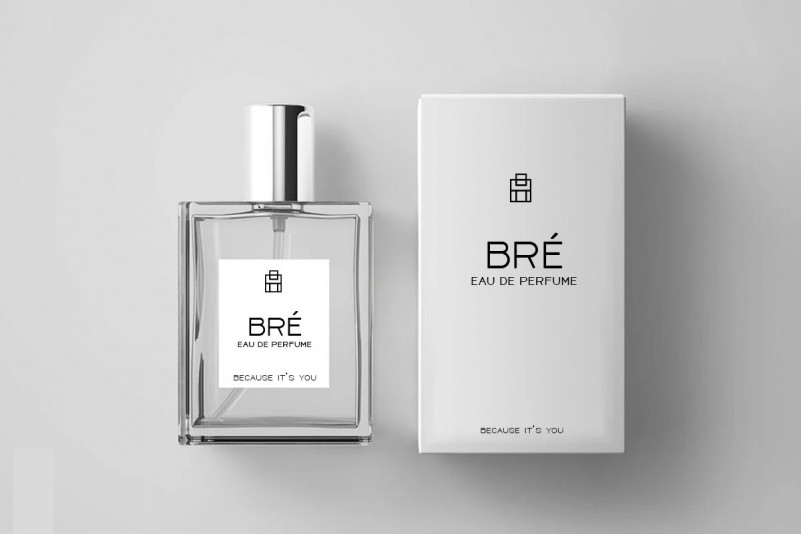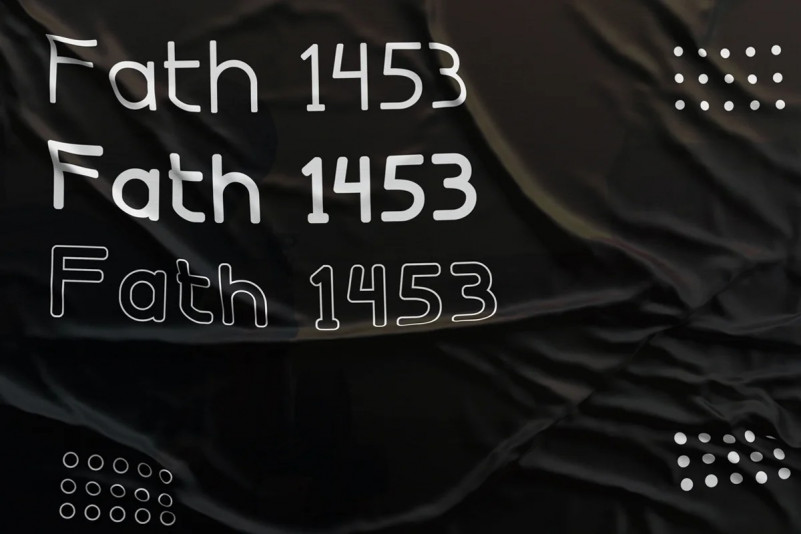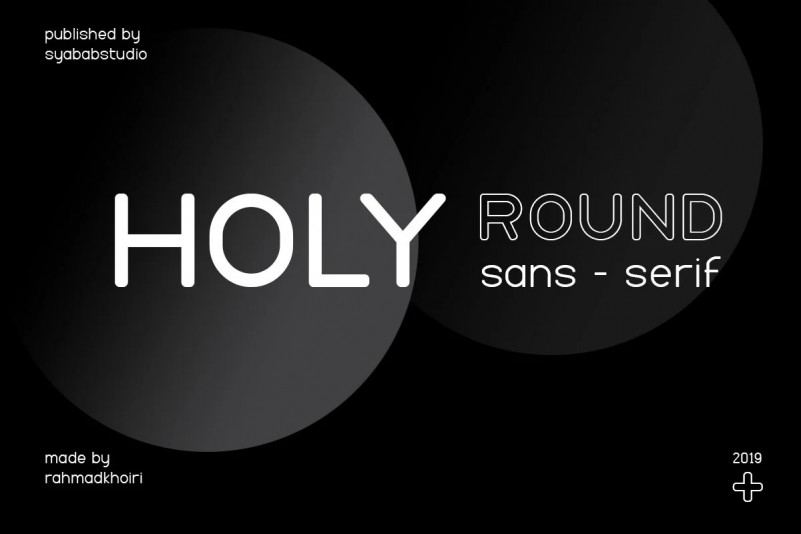
Holy Font
Holy Sans Serif Font is a minimal and neat sans serif font. Rugged, hearty, and warm. Holy is a versatile font family. Strong capitals and a smooth, open lowercase are effective in a variety of applications. The geometric, near-monoline construction lends Holy classic durability, tempered by softened edges and vibrant shapes.
It can easily be matched to an incredibly large set of projects, so add it to https://www.paypal.me/Rahmadkhoiriyour creative ideas and notice how it makes them stand out!